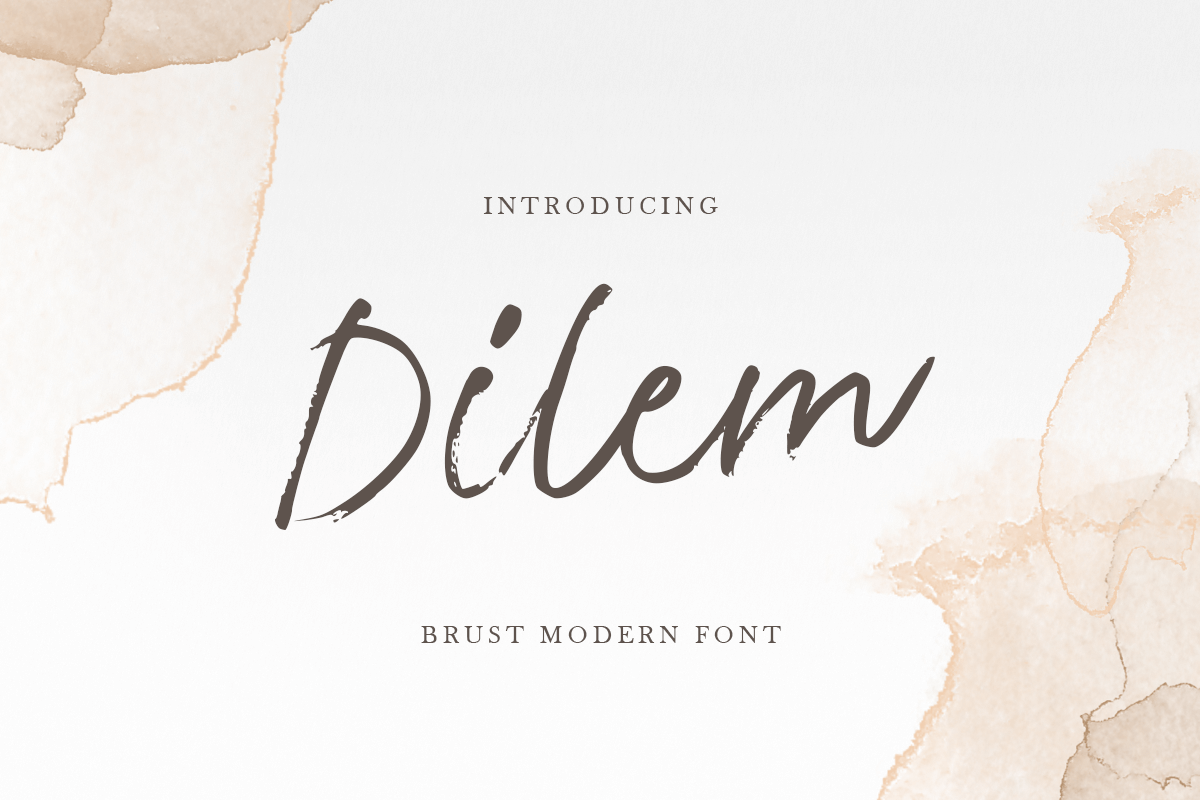
Dilem
-Beauty Script Brush Font
Dilem is a Beauty Script Brush Font that's perfect for cosmetic, beauty product, fashion promo, etc. This font specially crafted with easy to use but unique results are so beauty. Enjoy to Design any your needs with classy, unique, and beauty feel.